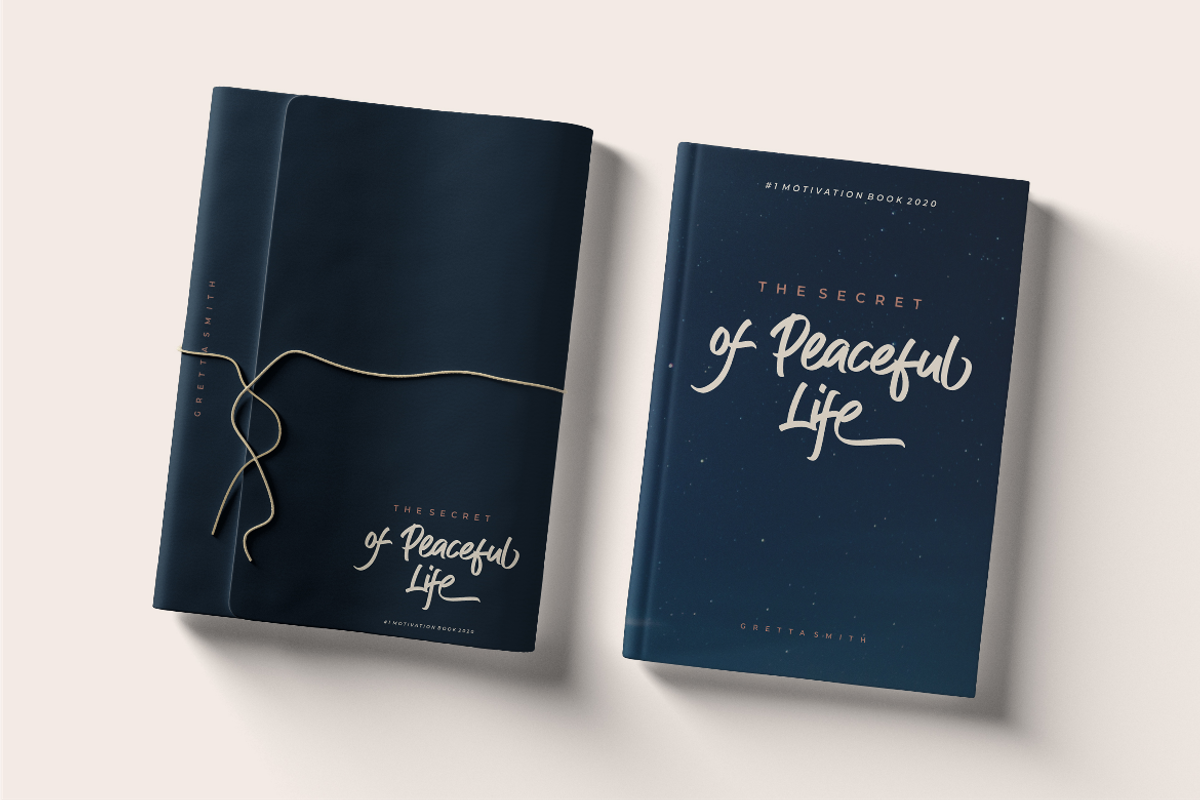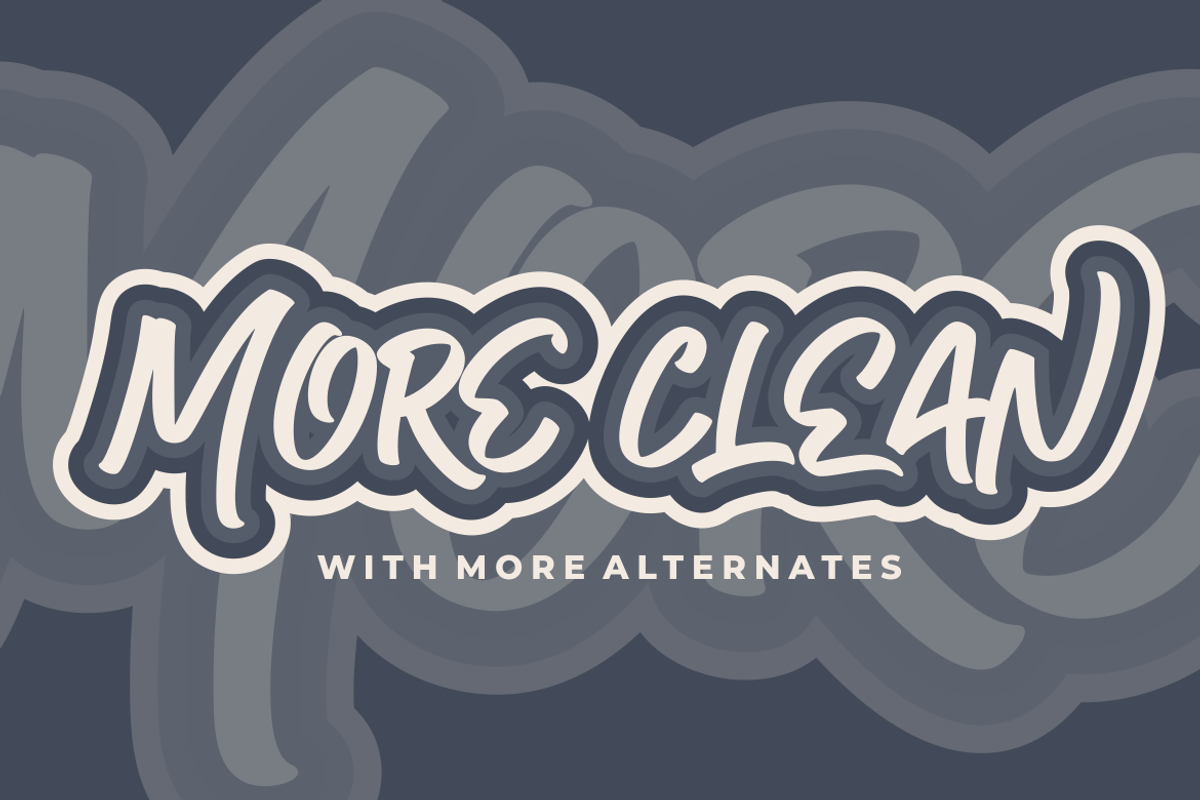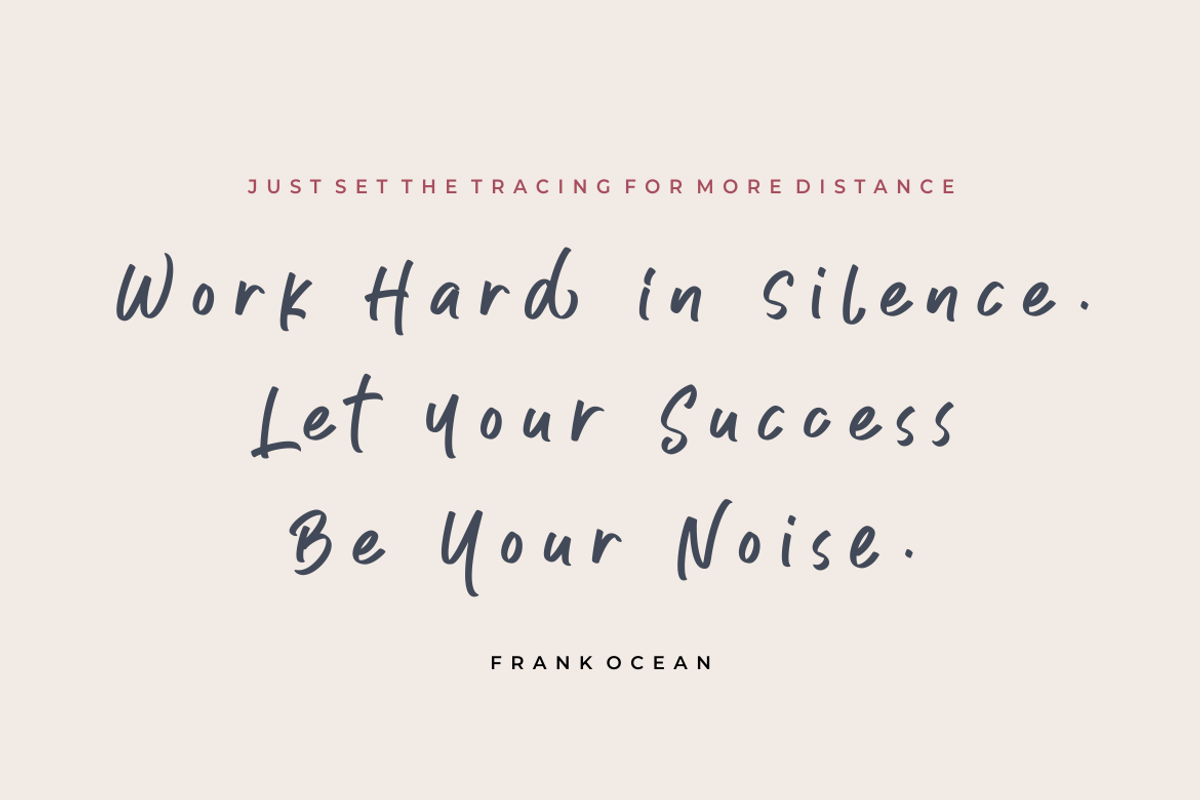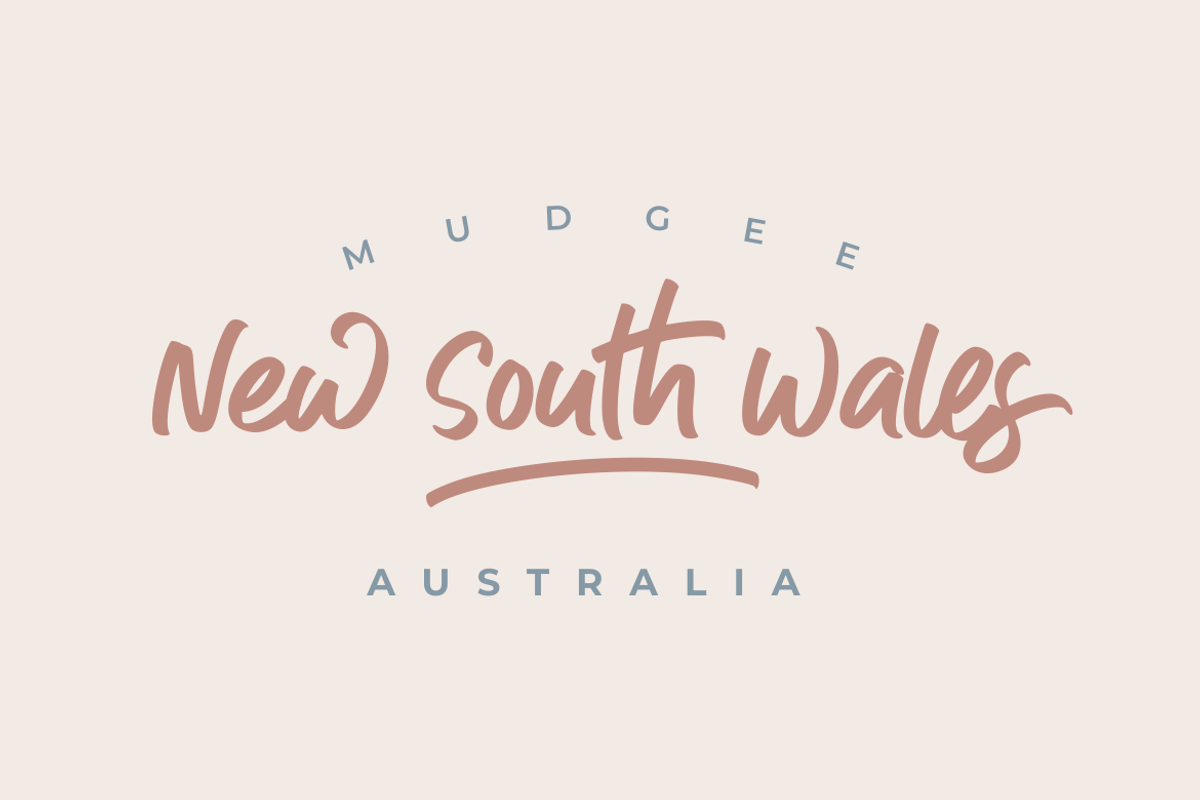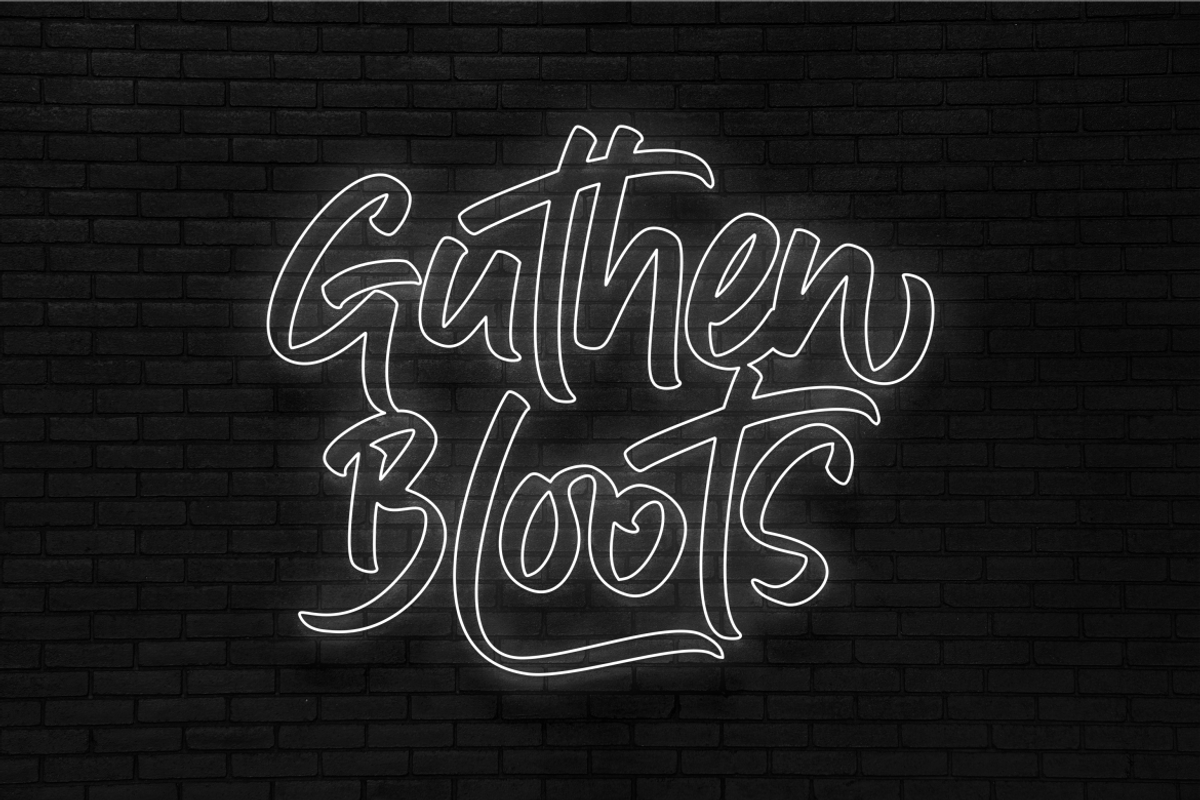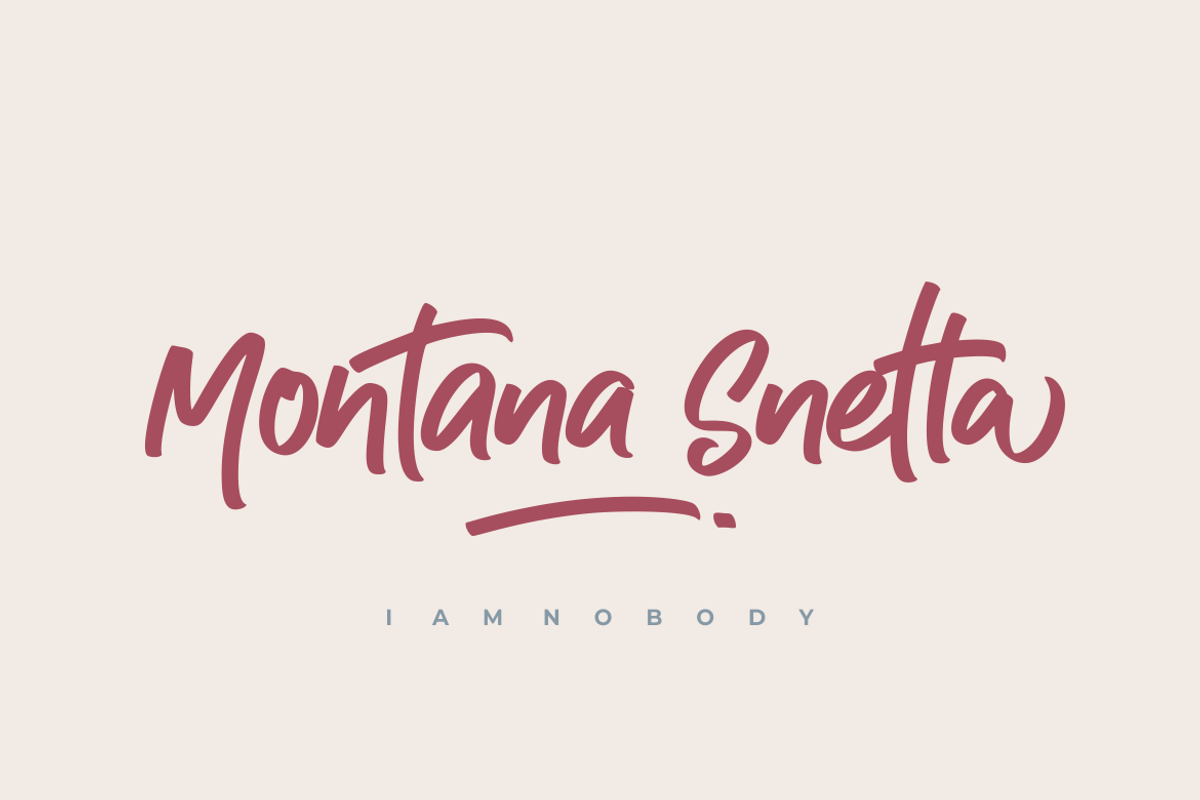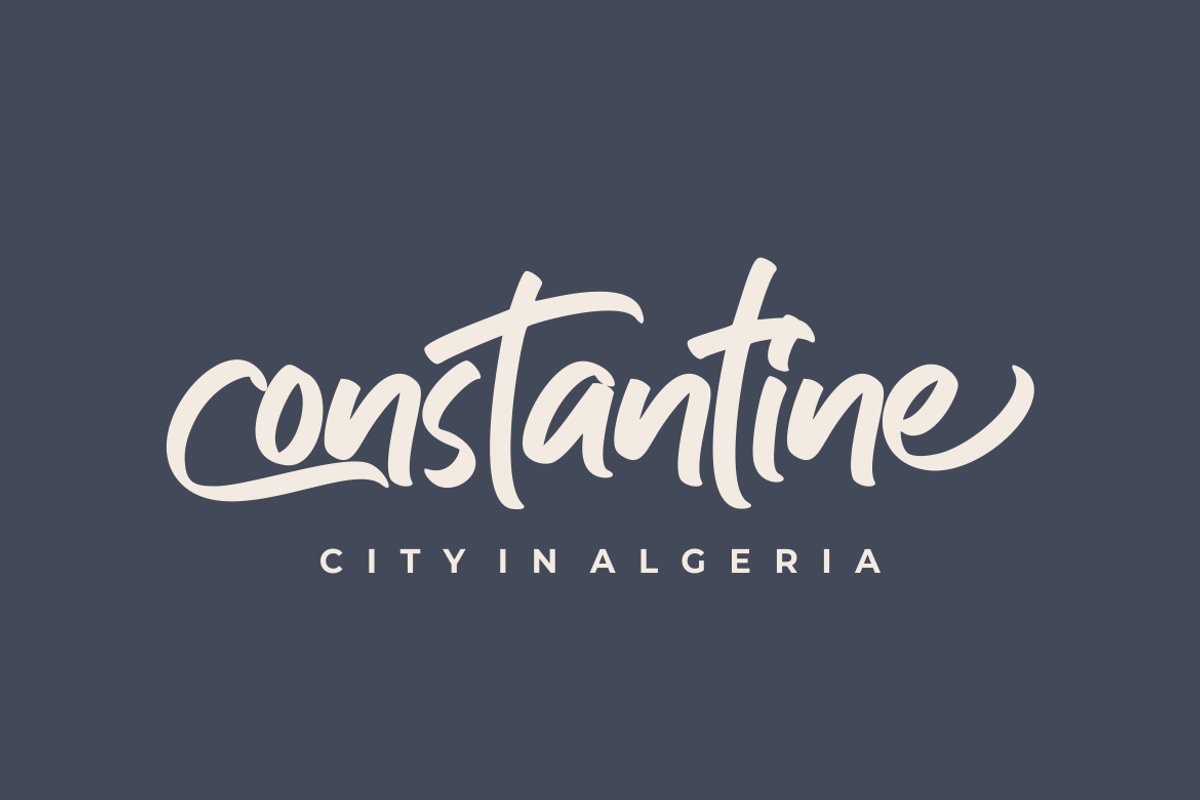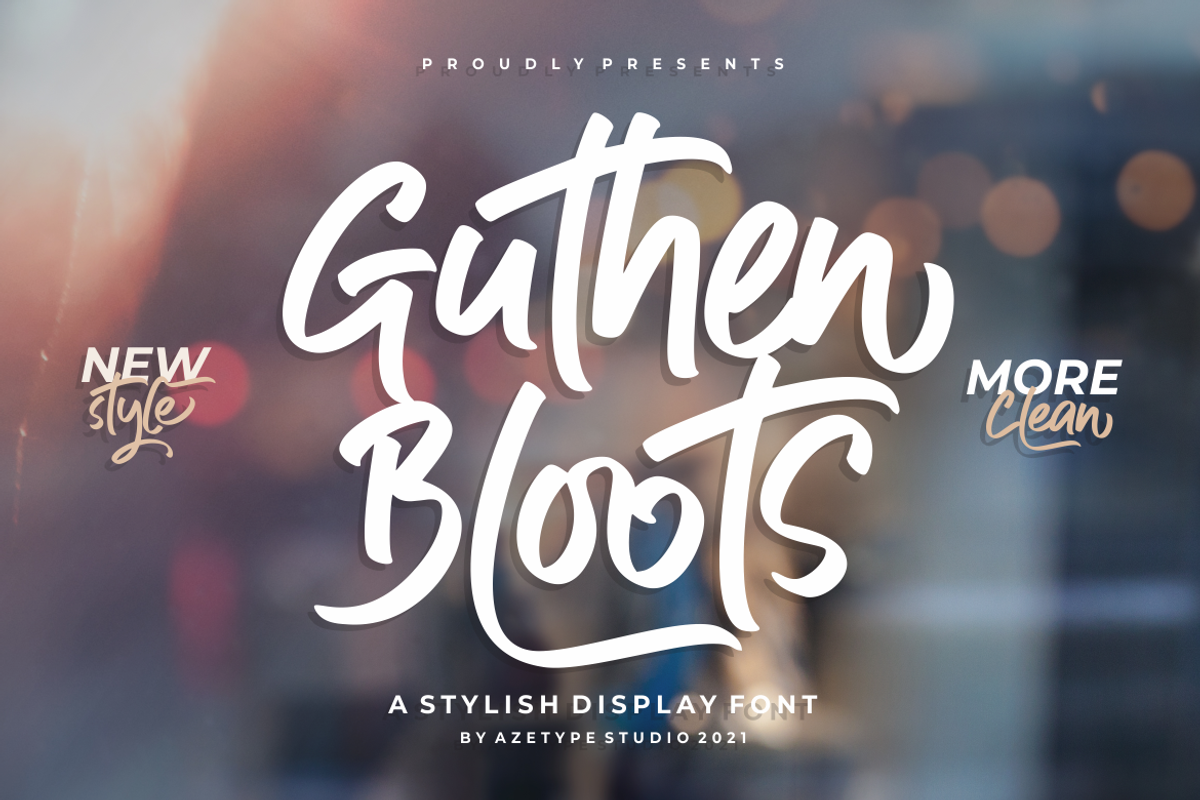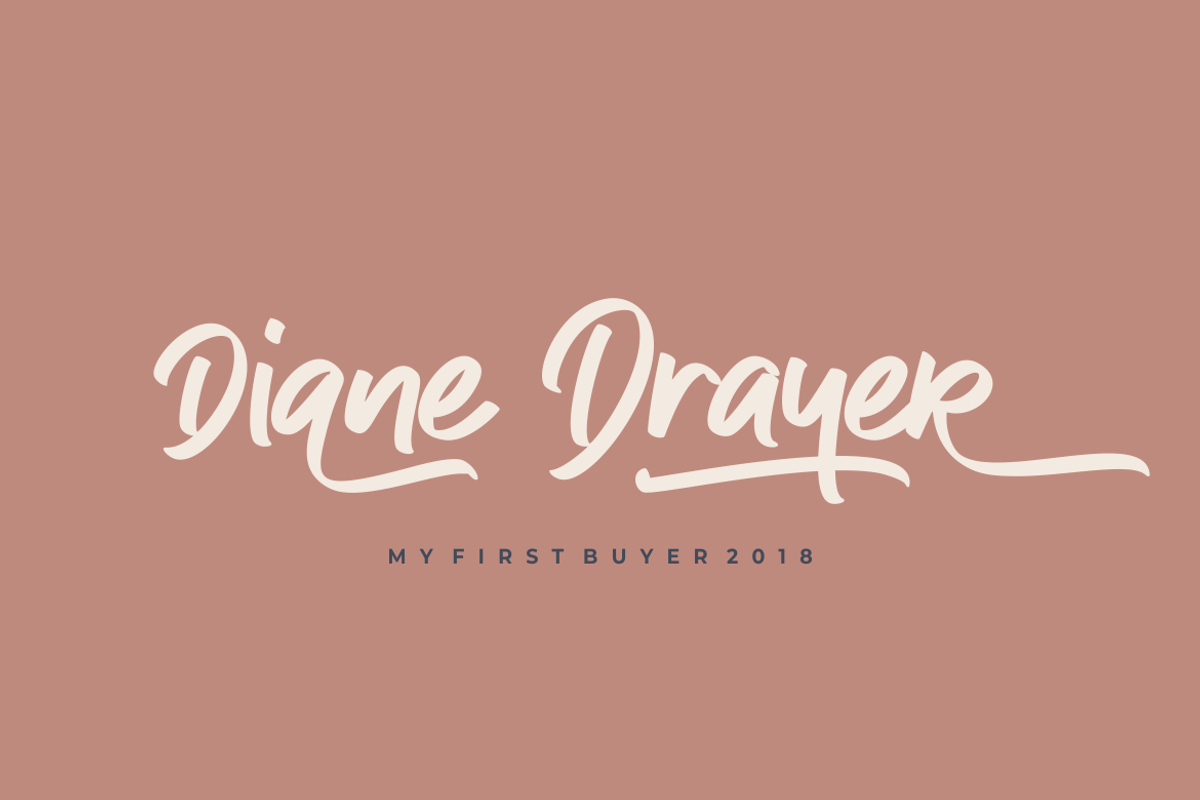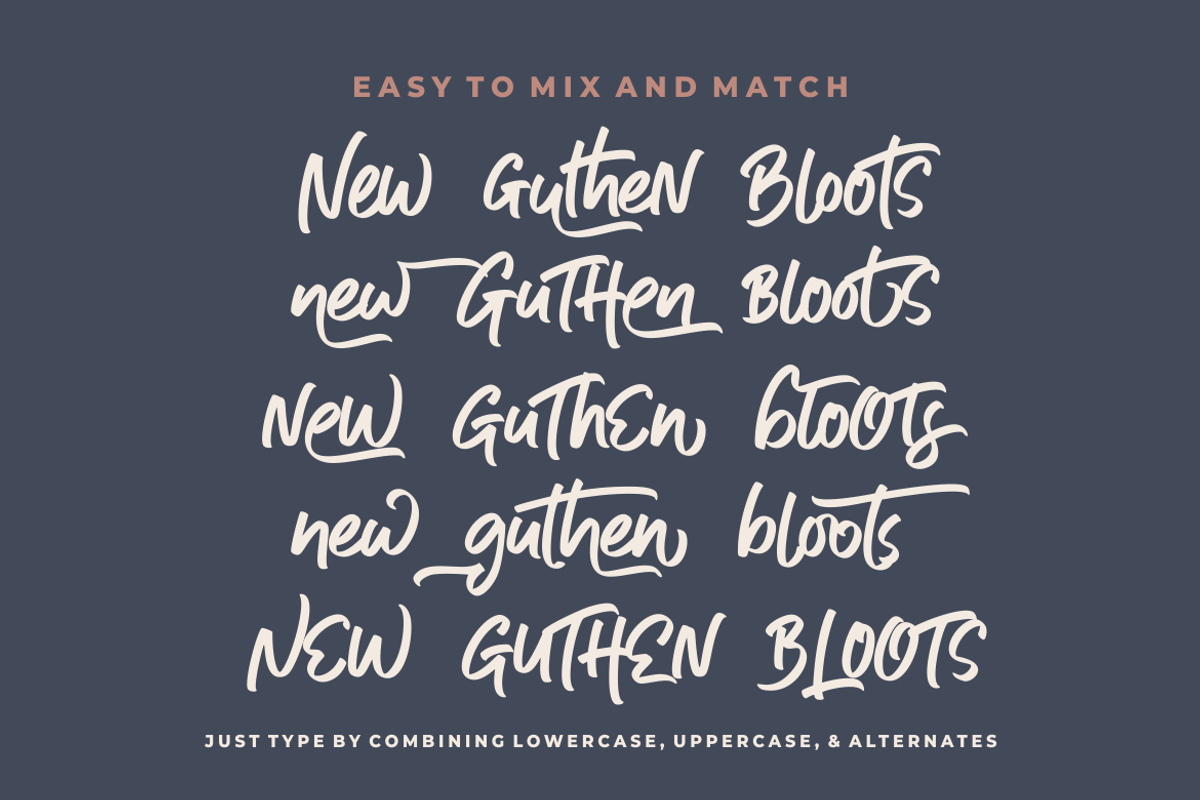
New Guthen Bloots • New Style!!!
Proudly Presents New Guthen Bloots! (INTRO SALE - Limited Time)
NEW STYLE - NEW VERSION
MORE STYLISH & MORE CLEAN
1. New Guthen Bloots Basic • The first version comes with uppercase, lowercase, ligatures, numeral, punctuation, symbols, and Huge Latin Multilingual Support (Afrikaans, Albanian, Asu, Basque, Bena, Breton, Catalan, Chiga, Cornish, Danish, English, Filipino, French, Friulian, Galician, German, Gusii, Indonesian, Irish, Italian, Kabuverdianu, Kalenjin, Kinyarwanda, Luo, Luxemburgish, Luyia, Machame, Makhuwa-Meeto, Makonde Malagasy, Manx, Morisyen, North Ndebele, Norwegian Bokmal, Norwegian Nynorsk, Nyankole, Oromo, Portuguese, Quechua, Romansh, Rombo, Rundi, Rwa, Samburu, Sango, Sangu, Scottish Gaelic, Sena, Shambala, Shona, Somali, Spanish, Swahili, Swedish, Swiss German Taita, Teso, Uzbek(Latin), Volapuk, Vunjo, Zulu, and Many More).
2. New Guthen Bloots Alt1 • The second version comes with uppercase, stylistic lowercase, and also Huge Multilanguage Support (see the first version). You can use it for custom types with a different style. Just switch by mix and match with others. And then enjoy your own style version.
3. New Guthen Bloots Alt2 • The third version comes with uppercase, stylistic lowercase, and also Huge Multilanguage Support (see the first version). You can use it for custom types with a different style. Just switch by mix and match with others. And then enjoy your own style version.
4. New Guthen Bloots Alt2 • The third version comes with uppercase (small caps), stylistic lowercase, and also Huge Multilanguage Support (see the first version). You can use for custom types with a different style. Just switch by mix and match with others. And then enjoy your own style version.
4. New Guthen Bloots Swash • This version comes with 52 underline swashes. Just type A-Z and a-z to feature all.